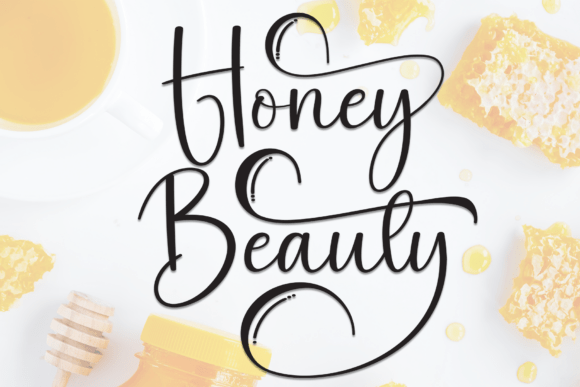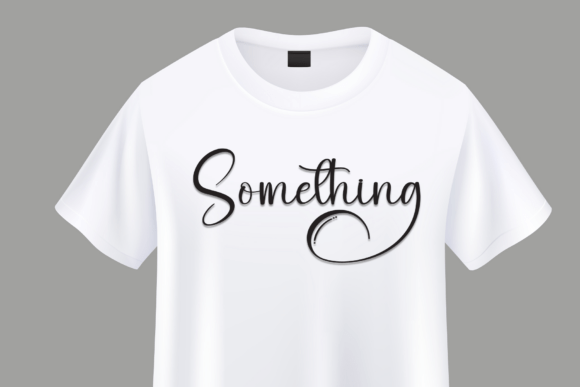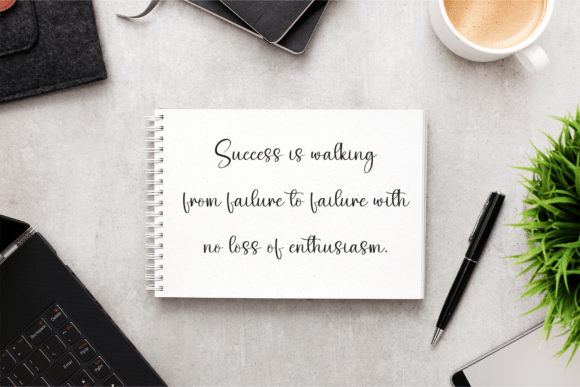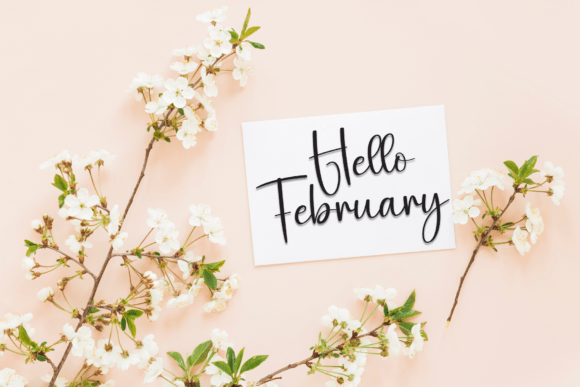
Honey Beauty Font
About the Honey Beauty Font
Make a bold statement with Honey Beauty Font, a powerful and memorable font. Honey Beauty is a beautifully flowing script font designed for creative projects. With its elegant curves and handcrafted feel, this font is perfect for DIY-themed designs, handmade product branding, invitations, scrapbooking, and more. Add a personal and artistic touch to your work with this stylish and playful script!
Honey Beauty’s flowing forms excel in headlines, short text blocks on invitations or packaging, and logos requiring a touch of delicate elegance. It’s less suitable for body text or UI elements due to its low readability at smaller sizes. Avoid using it for large amounts of continuous text.
This script font pairs well with clean sans-serif fonts like Montserrat or Lato for a modern contrast, or a classic serif like Playfair Display for a more traditional feel. Consider pairing it with a geometric sans-serif for a sophisticated, balanced look.
Honey Beauty projects a friendly, yet sophisticated personality, best suited for brands emphasizing handmade quality, artisanal goods, or a feminine aesthetic. Its playful energy is well-suited to projects that require a touch of whimsical charm without sacrificing elegance.
Honey Beauty Font Usage Examples
Honey Beauty Font Example